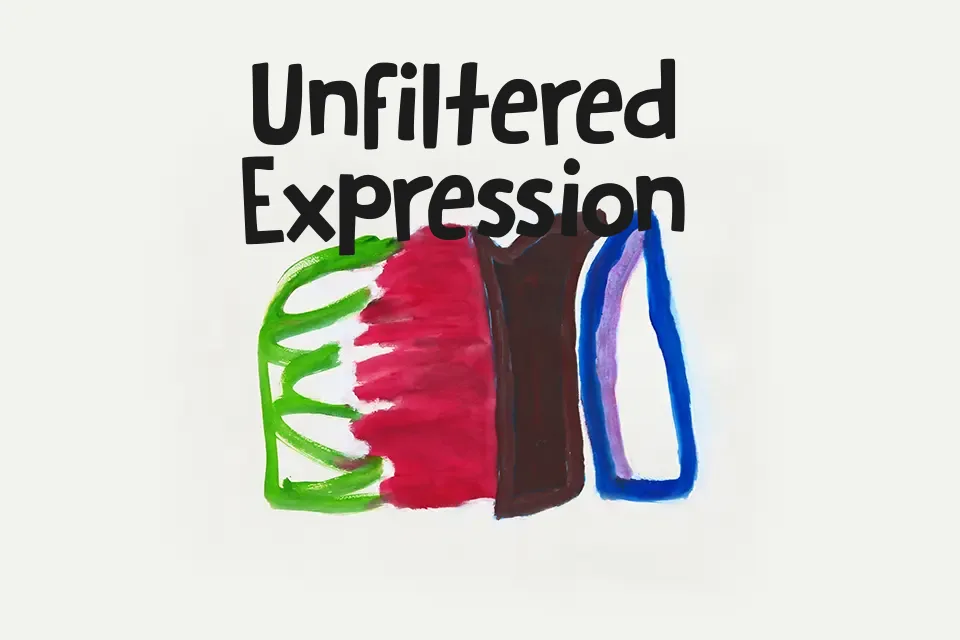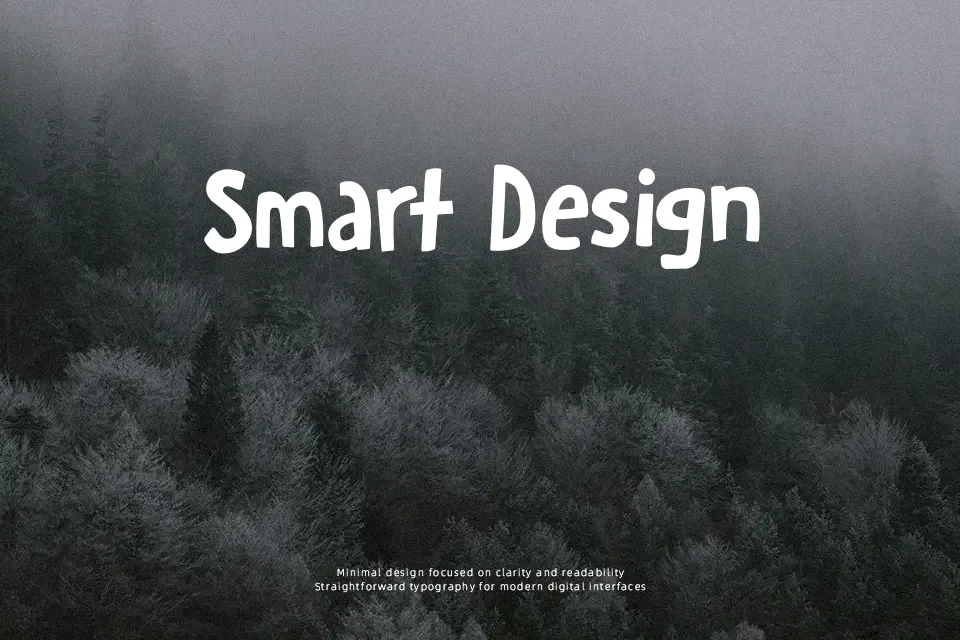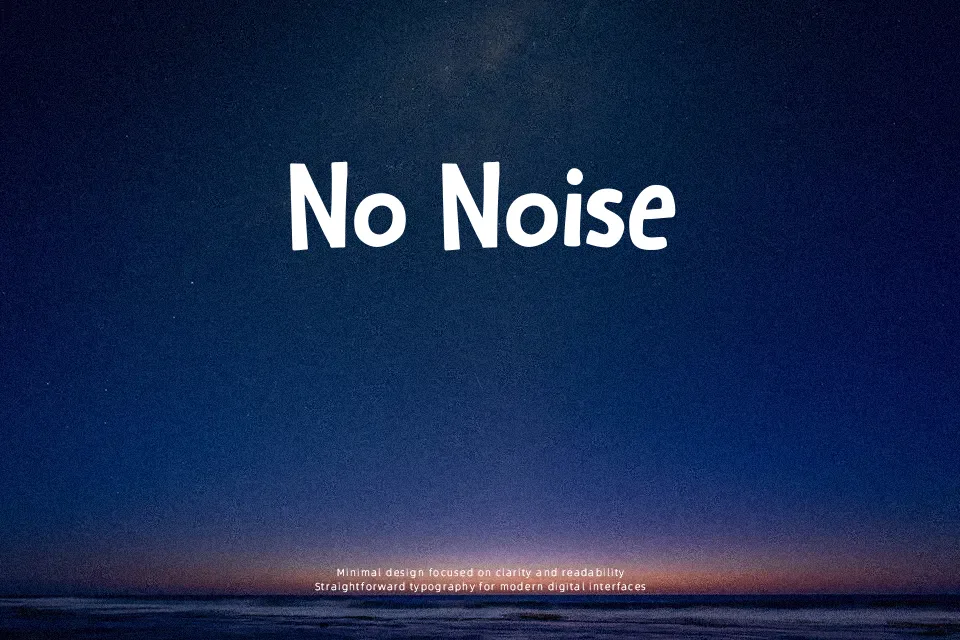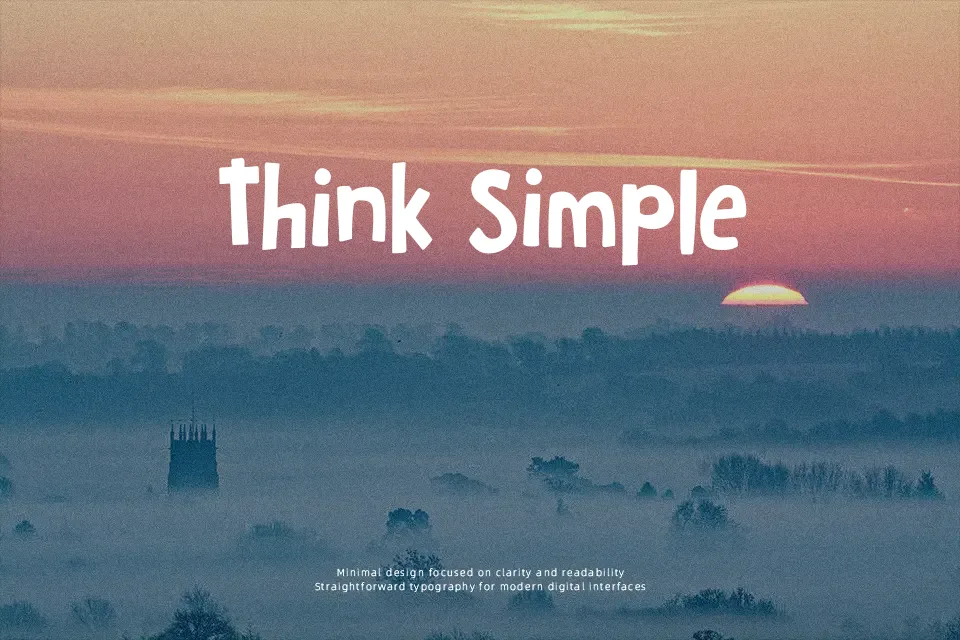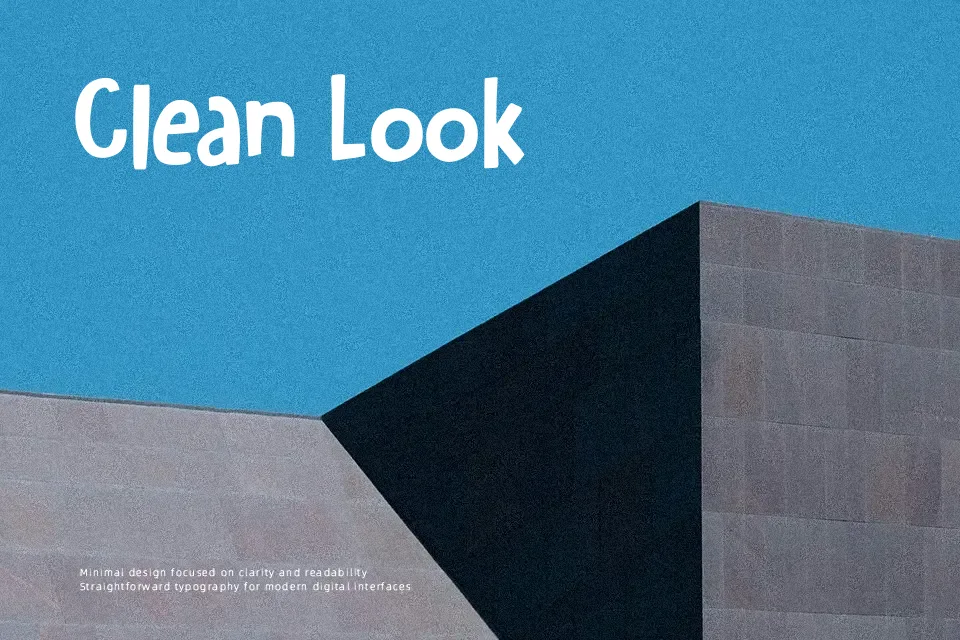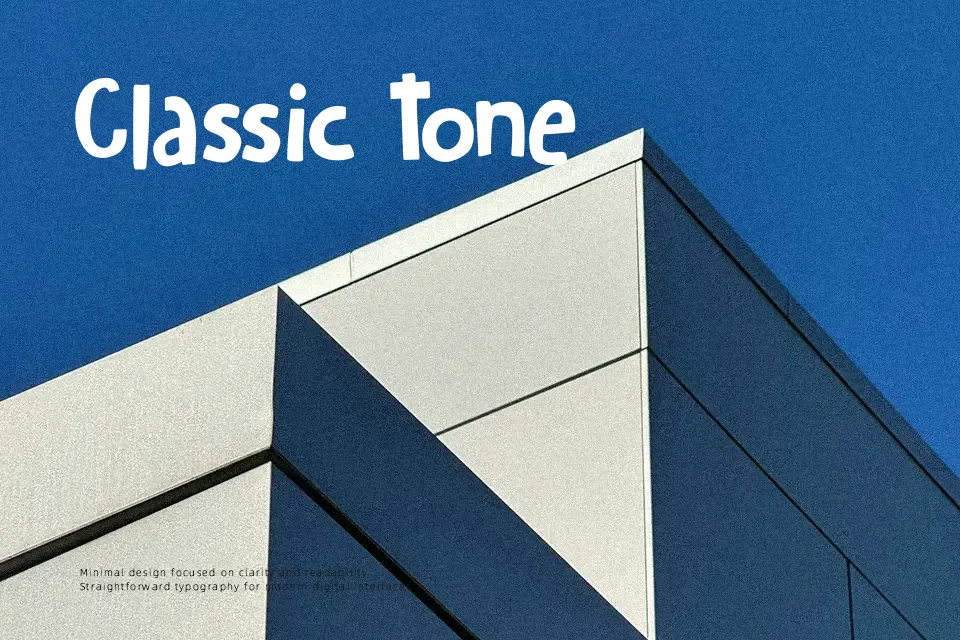
DK Hobgoblin Font
Designed by David Kerkhoff
DK Hobgoblin has thick, irregular strokes, tight curves, and slightly awkward spacing that give it a hand-drawn goblin charm. The shapes feel cartoonish rather than scary, so it leans more toward playful fantasy than true horror. It earns its keep on Halloween invitations, indie game title screens, party signage, and book covers for younger readers. The font has enough personality to carry a short headline on its own, especially when paired with simple artwork. It is less convincing in polished branding, editorial layouts, or any setting that needs steady rhythm, because the uneven structure becomes noisy once the text gets longer.
Halloween posters, fantasy game titles, kids party graphics, short book covers
Body text, corporate branding, formal invitations, dense editorial layouts